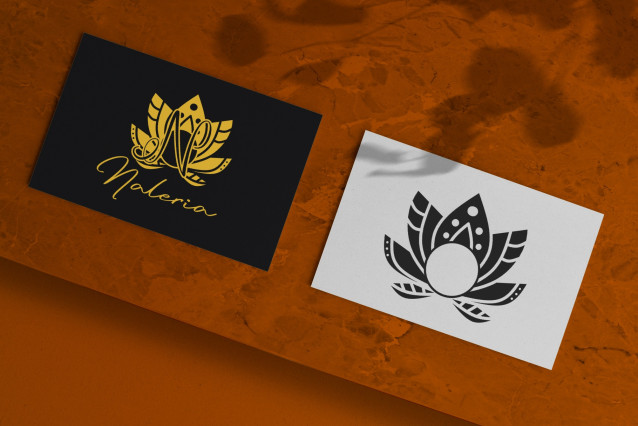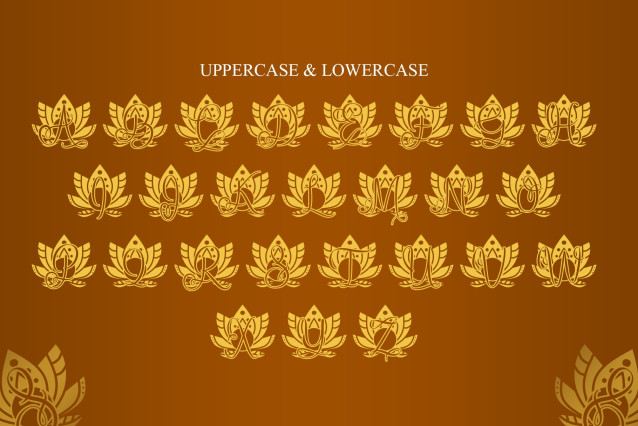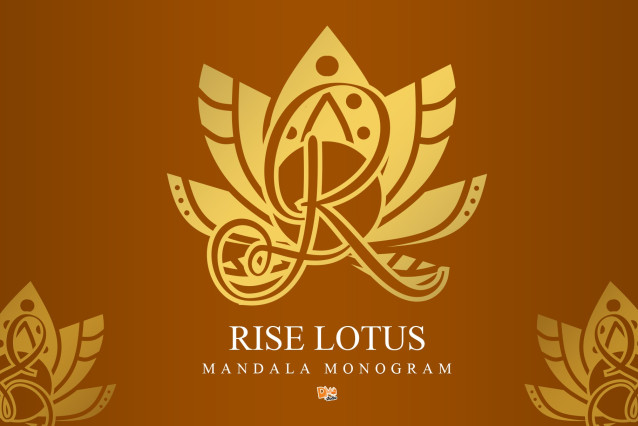
Rise Lotus Mandala Monogram Font
Rise Lotus Mandala Monogram is an ornamental monogram font that blends the delicate beauty of lotus petals with the harmony of mandala symmetry. Designed to symbolize personal growth, awakening, and creative expansion, this font brings an uplifting spirit to any design. Perfect for wellness branding, motivational prints, invitations, journals, or holistic product packaging, it’s both artistic and meaningful.